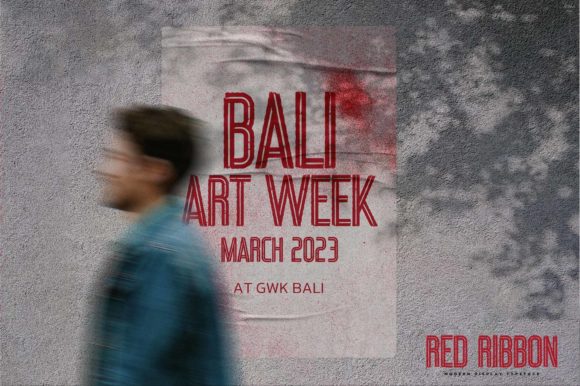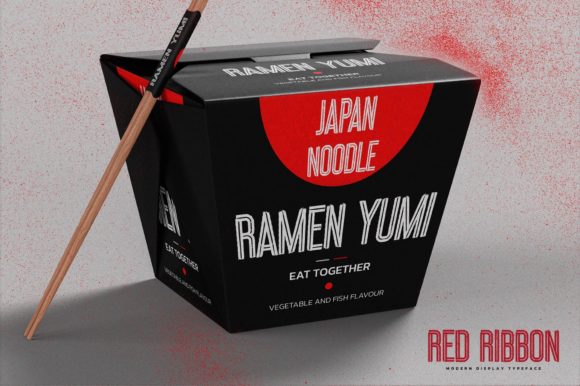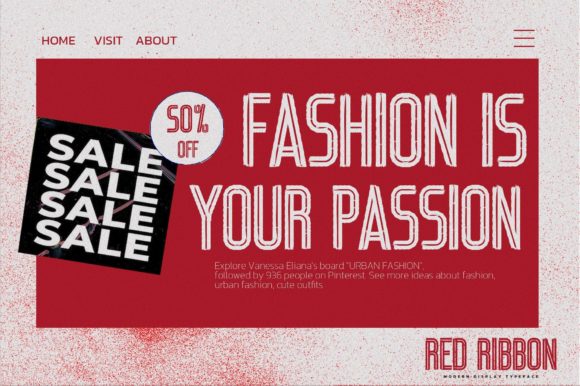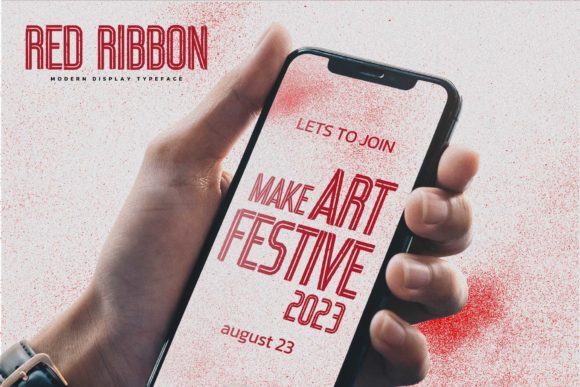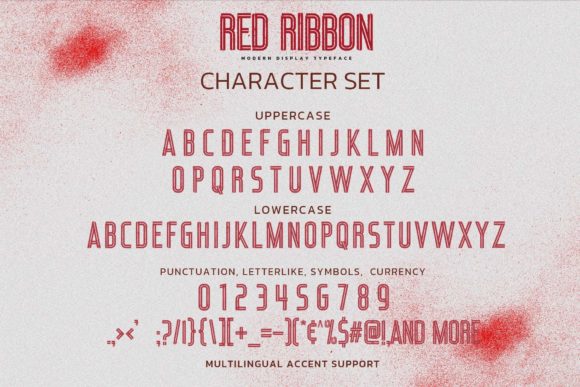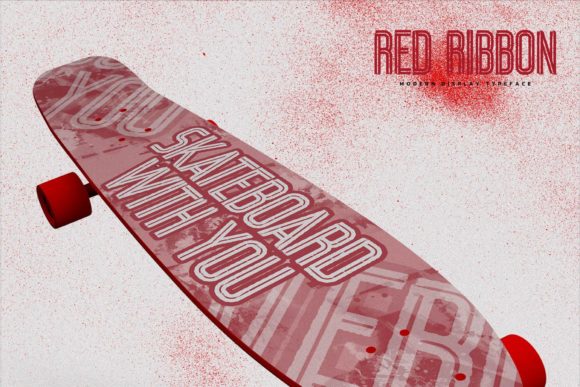
Introduction to Red Ribbon Font
As a designer, you’ve likely found yourself staring at a blank page, waiting for the perfect font to strike inspiration. It’s a moment we’ve all been in, where the right font can elevate a design from bland to grand. And that’s exactly what Red Ribbon Font is – a modern display typeface that adds a touch of natural charm to any design project. With its handmade feel and versatility, Red Ribbon Font is the perfect addition to your design resource collection.
Whether you’re working on an invitation, book cover, or craft project, Red Ribbon Font is sure to impress. Its unique blend of Food Logo style and Craft style elements makes it a standout choice for designers looking for a high-quality font that adds a personal touch. And the best part? Red Ribbon Font is available for free download, making it an accessible resource for designers of all levels.
So why is Red Ribbon Font so valuable for designers? For one, its transparent background makes it easy to use on a variety of design backgrounds. Plus, its free download status means you can experiment with it on a creative project without breaking the bank. Whether you’re a seasoned pro or just starting out, Red Ribbon Font is a valuable addition to any designer’s toolkit.
Key Features of Red Ribbon Font
- High-quality design resource for creative projects, perfect for adding a touch of elegance and sophistication.
- Transparent background, allowing for seamless integration with various design elements and backgrounds.
- Comes in 7 different styles, each with its unique characteristics, making it a versatile design resource for various creative projects.
- High-resolution design, ideal for printing and large-scale displays, ensuring crisp and clear visuals.
- Perfect for designers, artists, and crafters looking for a unique and high-quality design element to elevate their creative projects.
Honest Review: Red Ribbon Font
I recently came across the Red Ribbon Font while searching for a unique design resource for a creative project. I must say, I was impressed by its overall quality and aesthetic appeal.
- High-quality typography: The Red Ribbon Font features smooth lines and precise lettering, making it perfect for projects that require attention to detail.
- Limited character set: The font only includes a limited set of characters, which may not be suitable for projects that require a wide range of languages or special characters.
- Not ideal for large text: The font is best suited for small to medium-sized text, as it may become difficult to read when used for large text.
Overall, I would give the Red Ribbon Font a solid 4 out of 5 stars. It’s a high-quality design resource that is perfect for creative projects that require a touch of elegance and sophistication. However, its limitations should be taken into consideration before using it for large-scale projects or projects that require a wide range of languages or special characters.
Getting the Most Out of the Red Ribbon Font